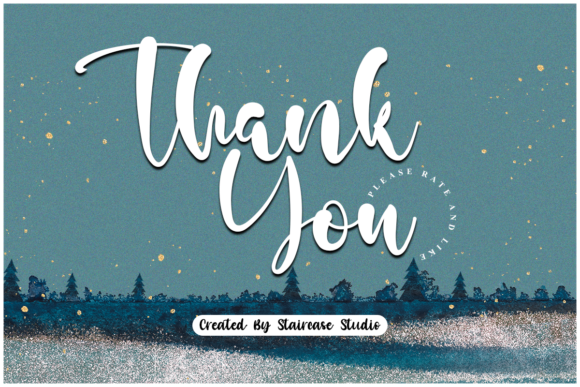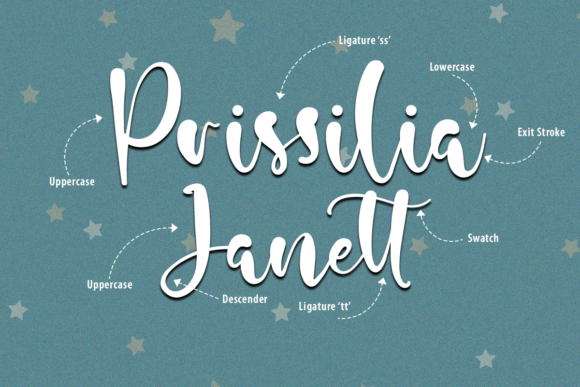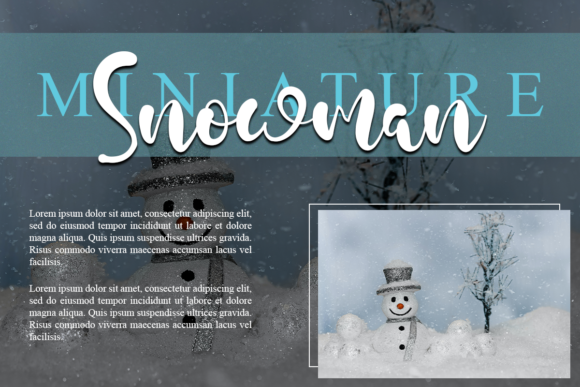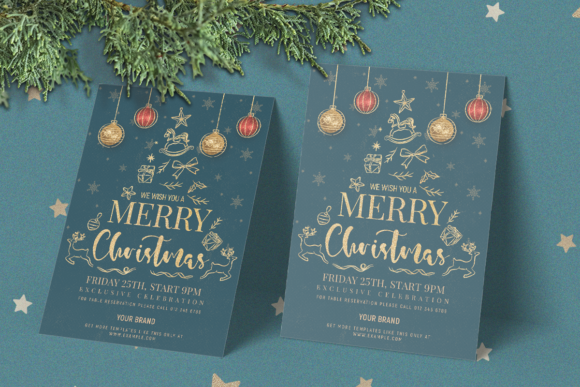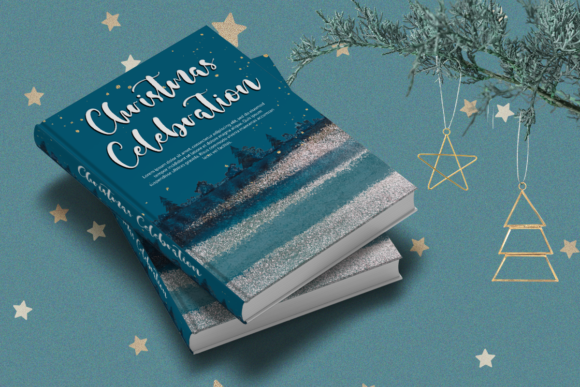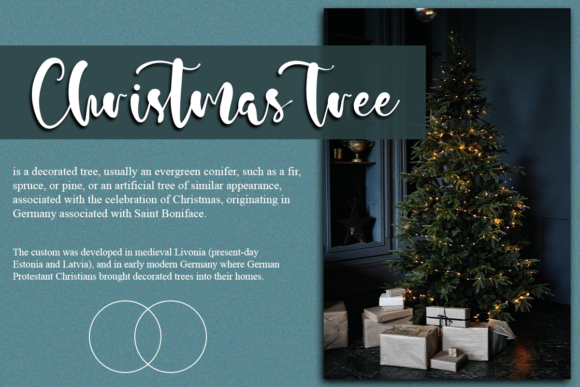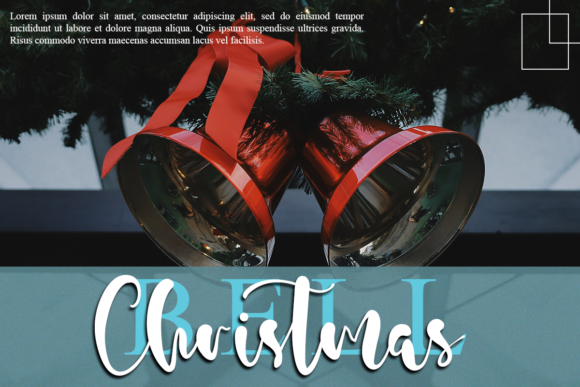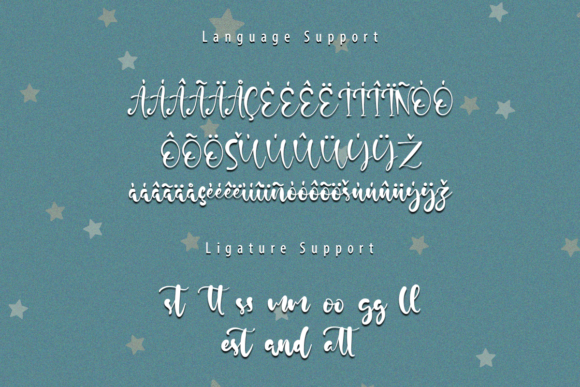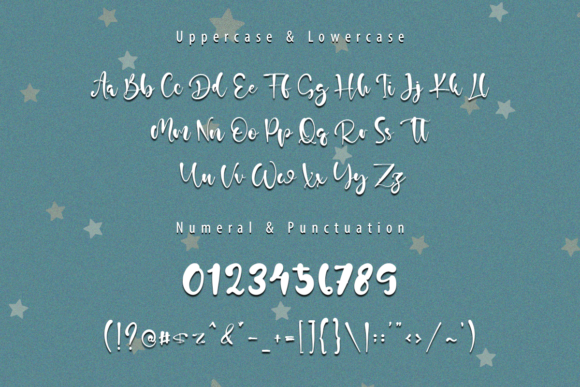
Snow Rain Font
About Snow Rain Font
Snow Rain is a beautiful and refined script font. It has a classy, elegant and modern look that can be used for logos, branding, invitations, stationery, wedding designs, social media posts, and much more!